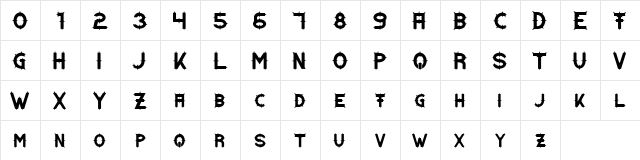
Dornen Regular Free Font
Dornen Regular
Design Context for Dornen
Dornen is a composed and adaptable typeface that performs quietly and consistently across a wide range of design contexts.
Pro Tip: Use Dornen in both headline and body roles to test its range before committing to a single application.